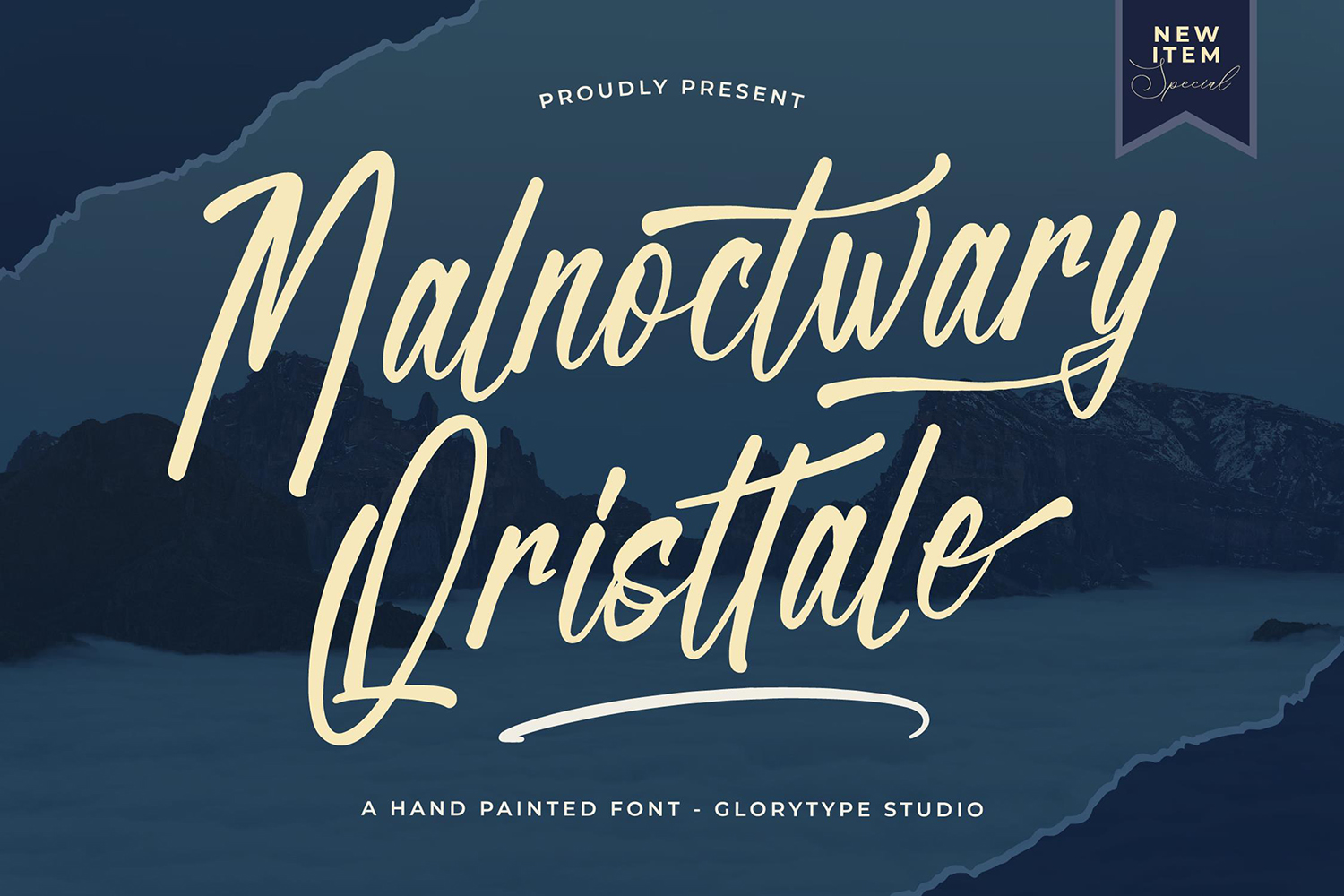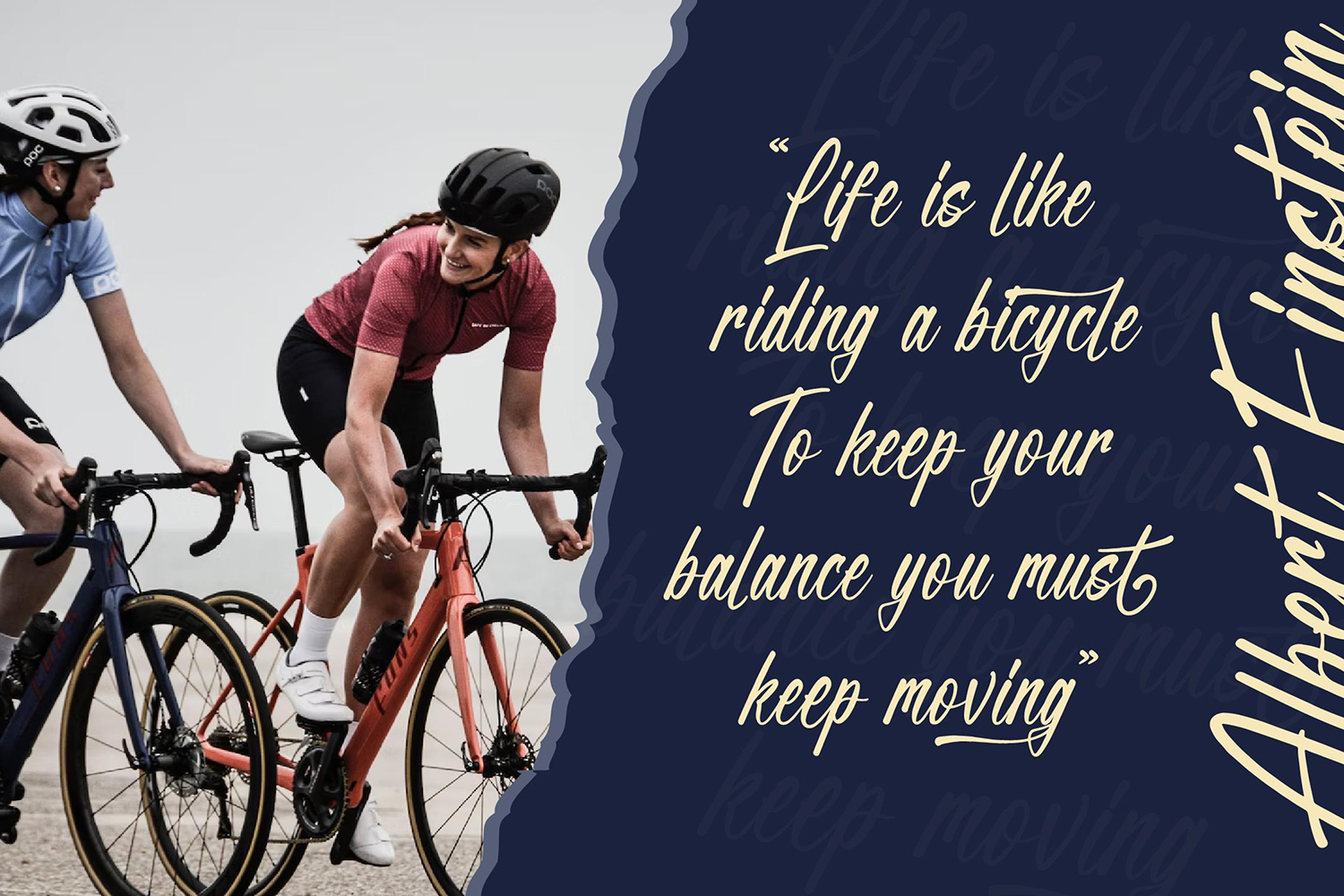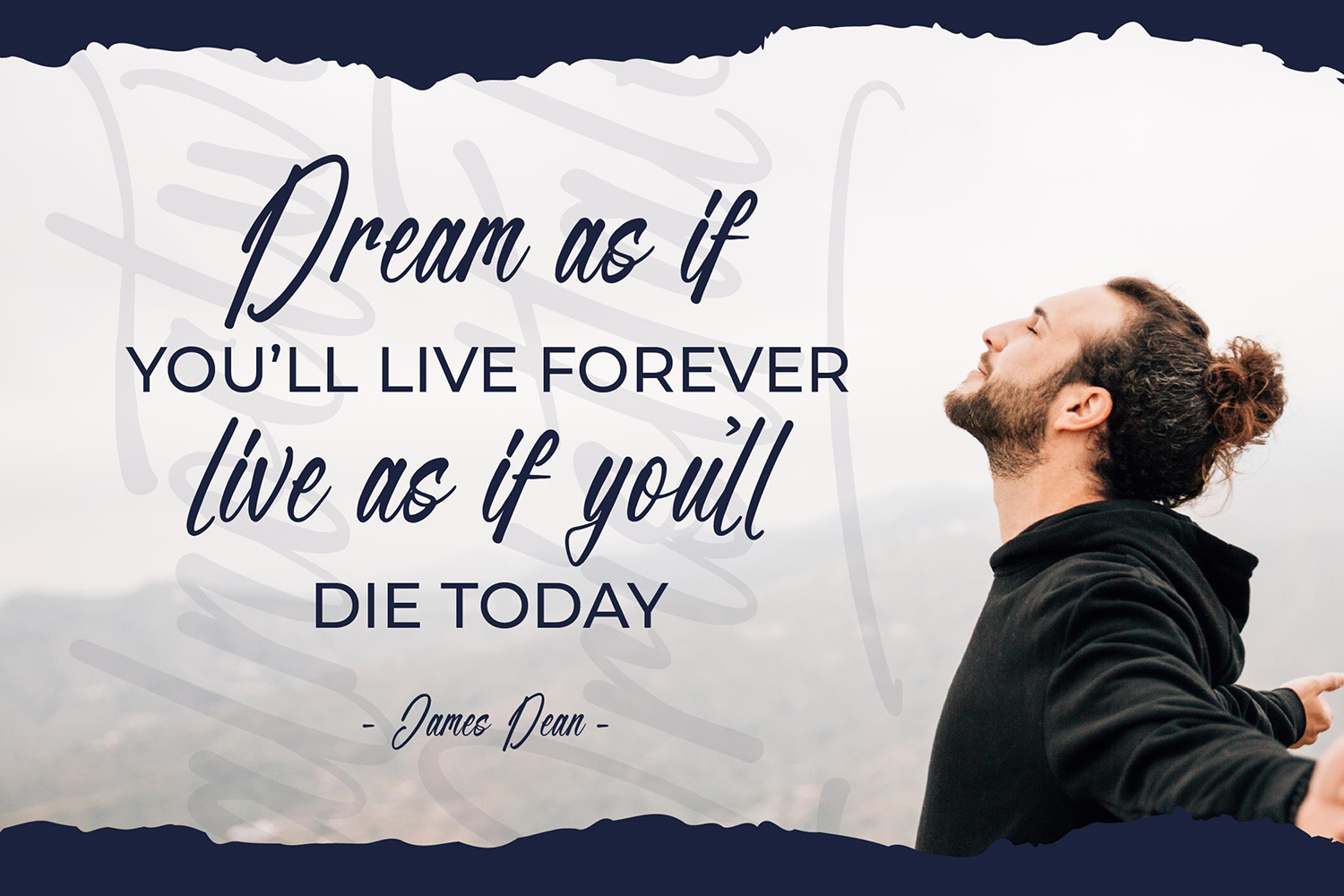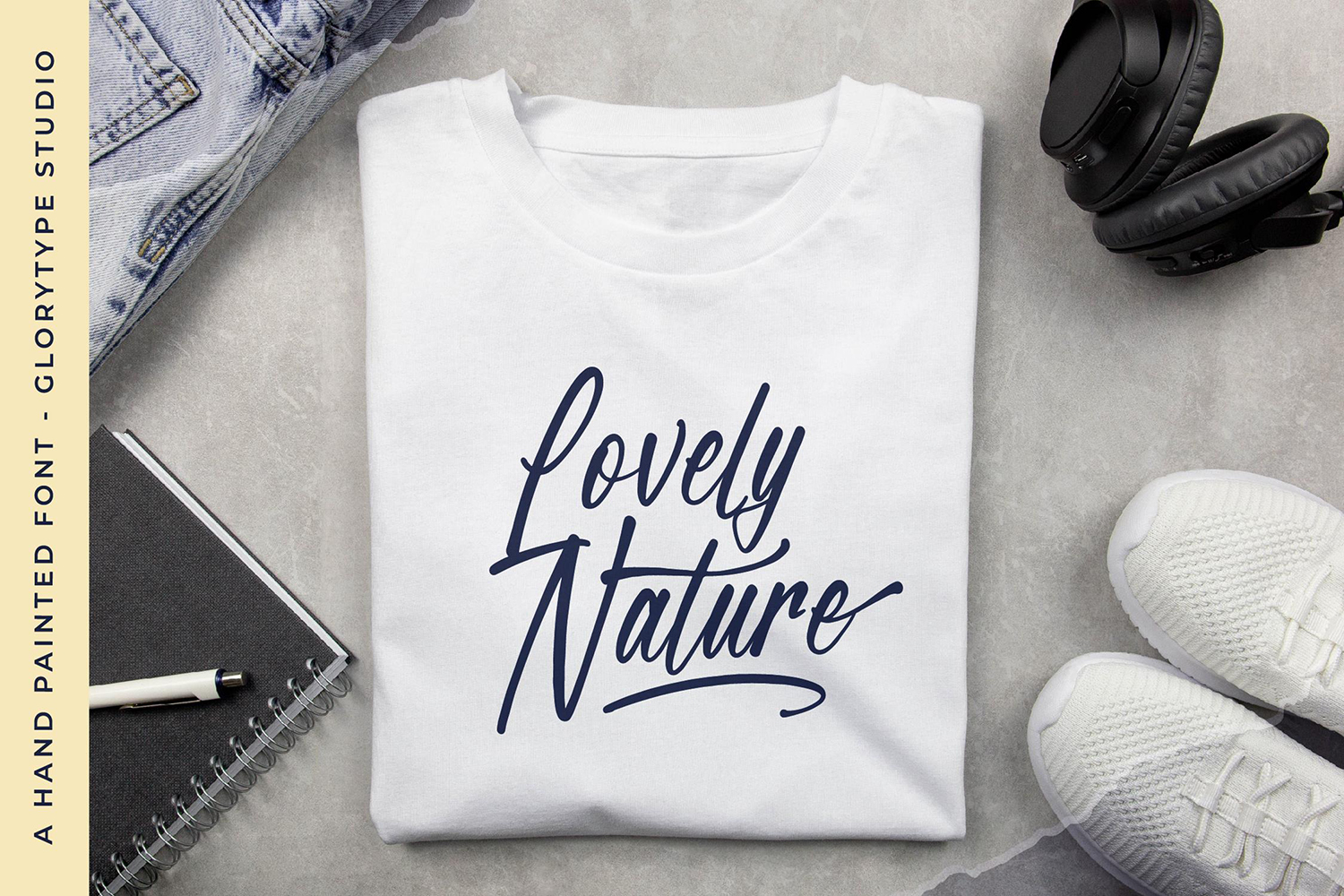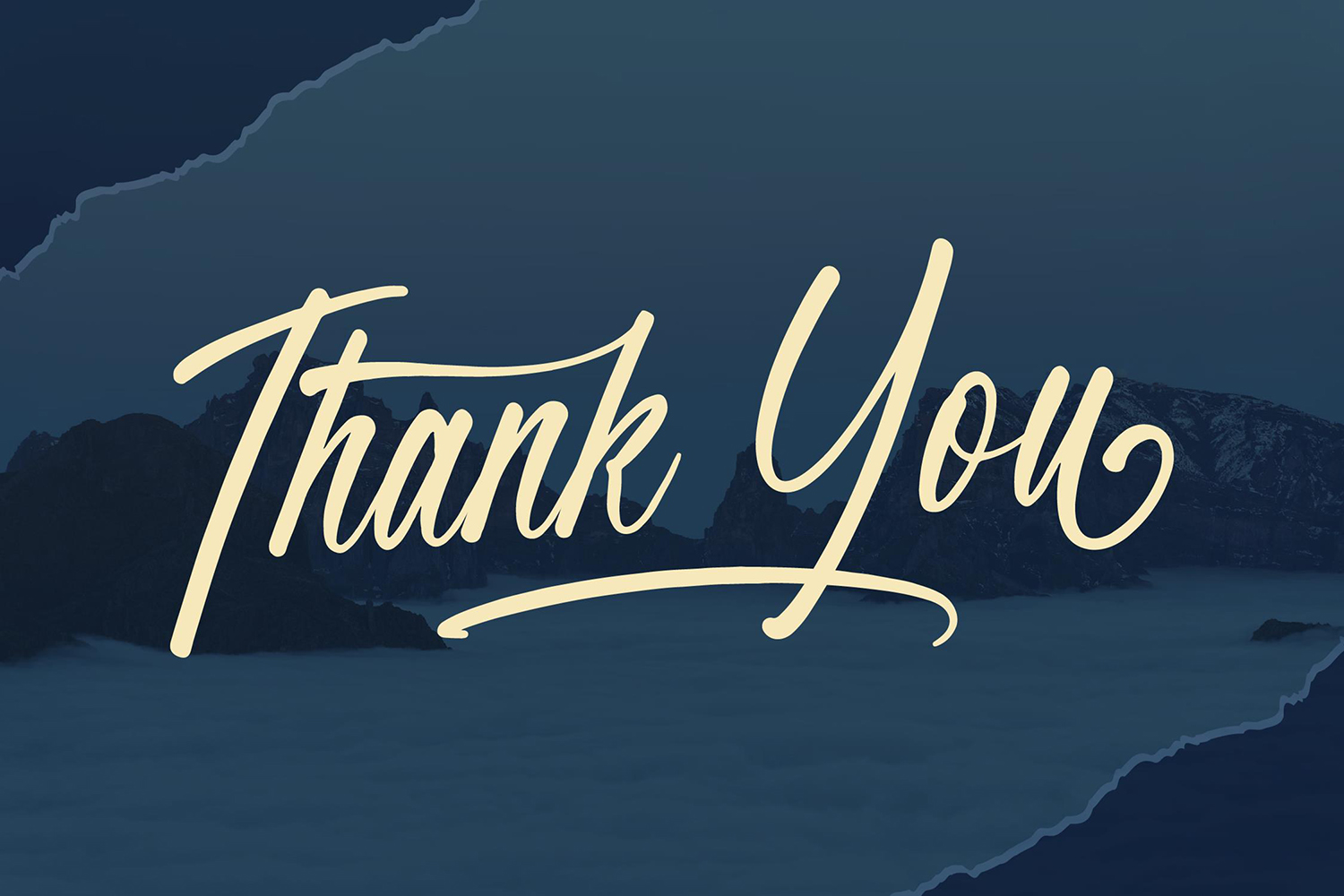
Malnoctwary Qristtale Free Font
Malnoctwary Qristtale Free Font is a hand-painted script font. It’s suitable for logos, branding projects, homeware designs, product packaging, mugs, quotes, posters, shopping bags, t-shirts, book covers, name cards, invitation cards, greeting cards, labels, photography, watermark, and special events.